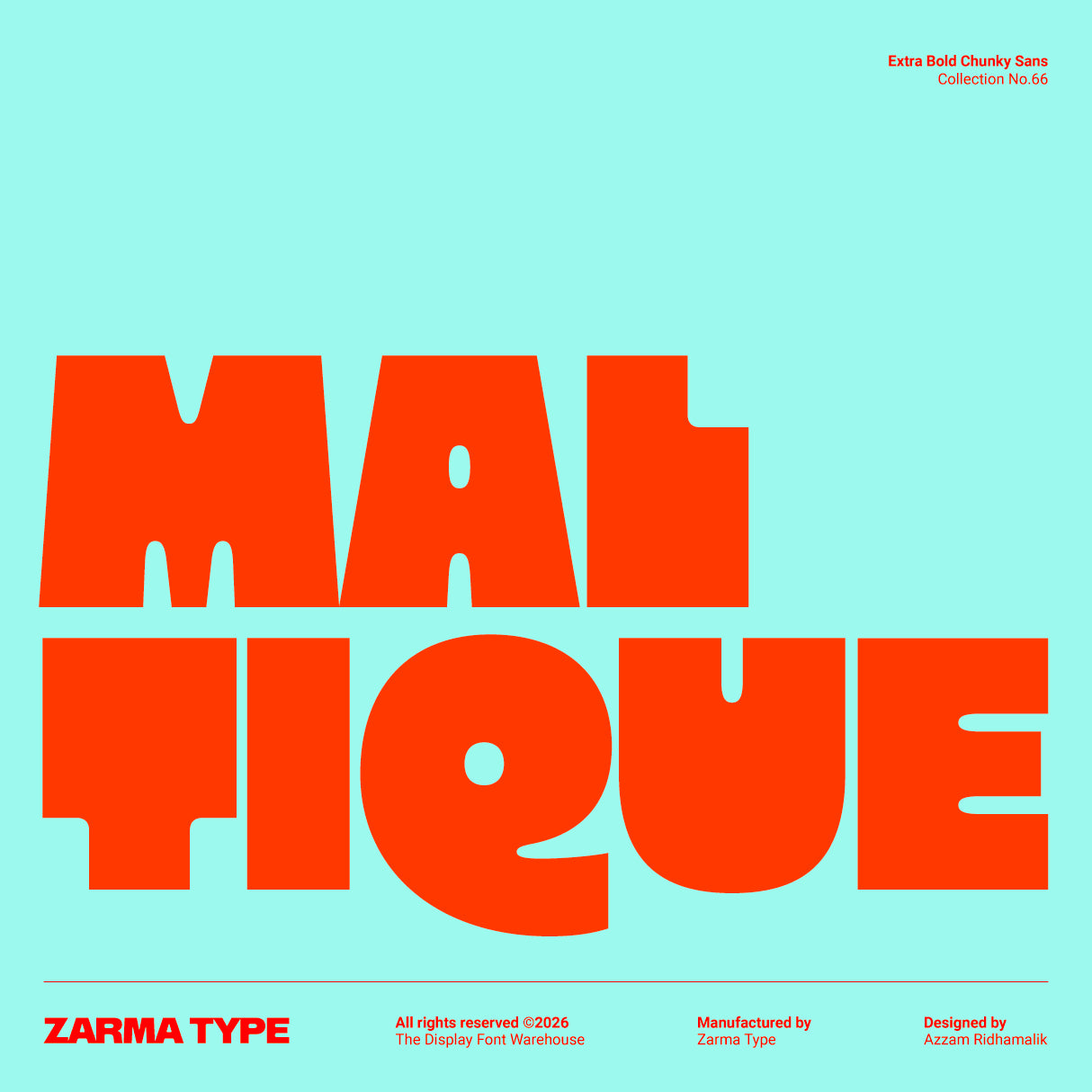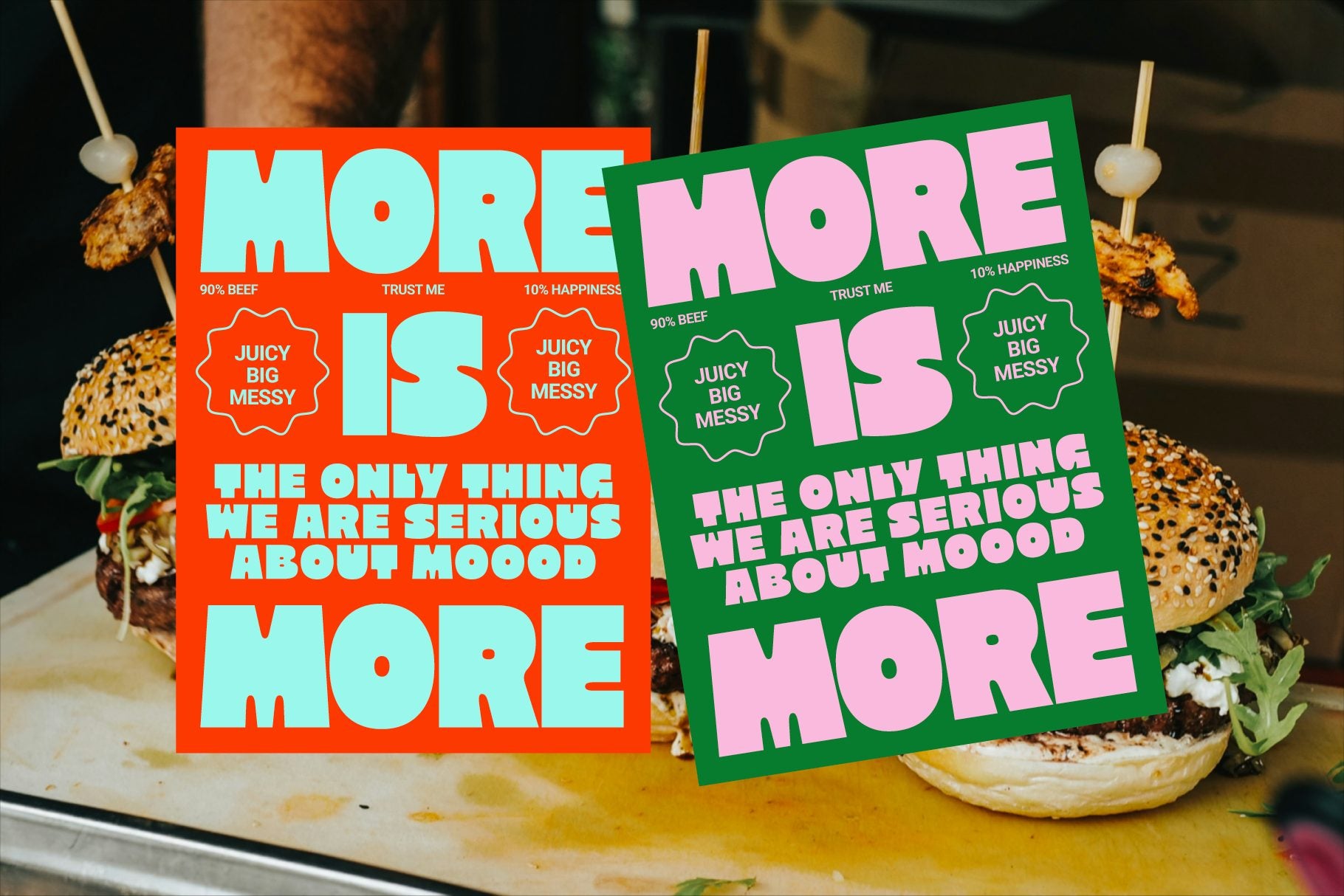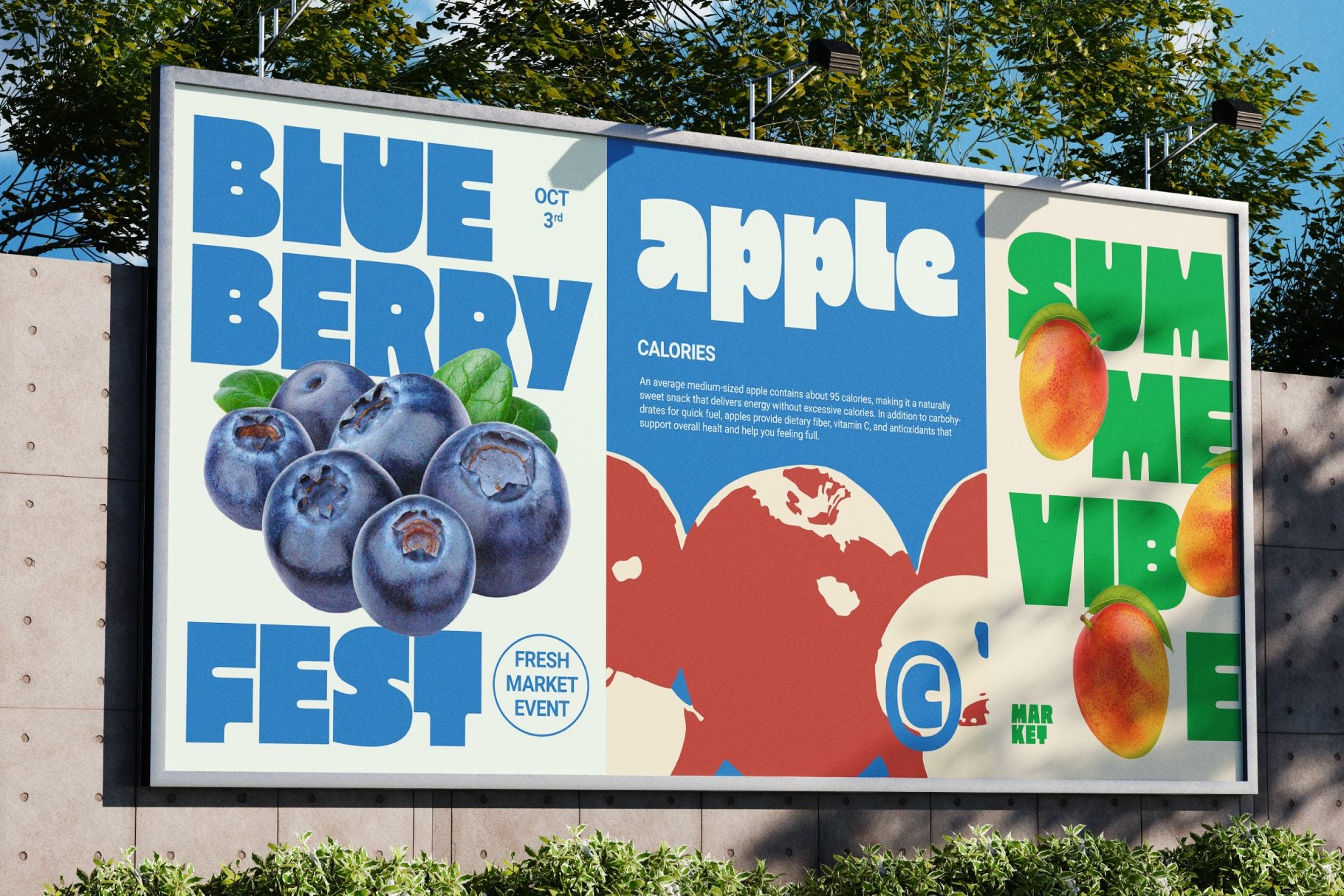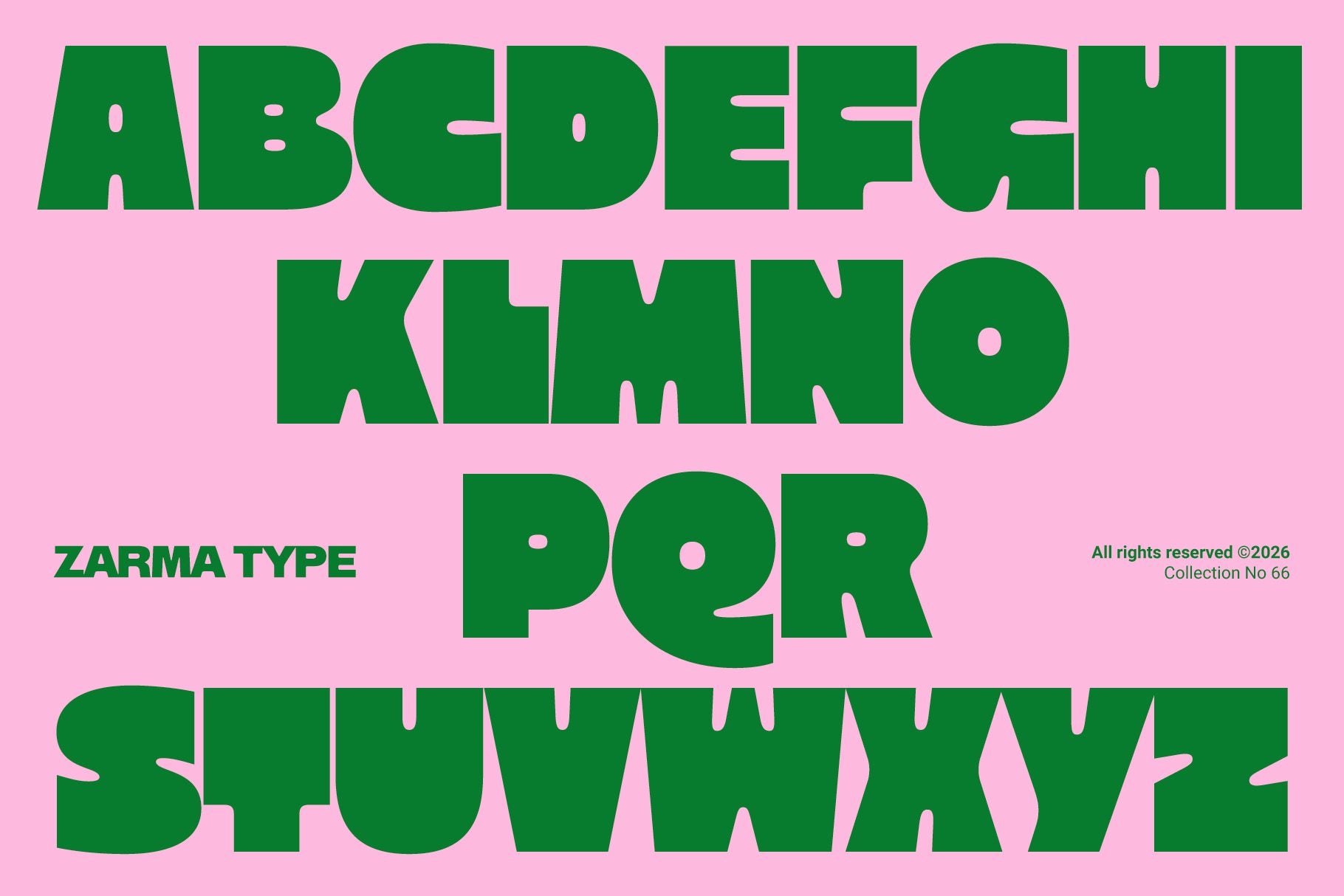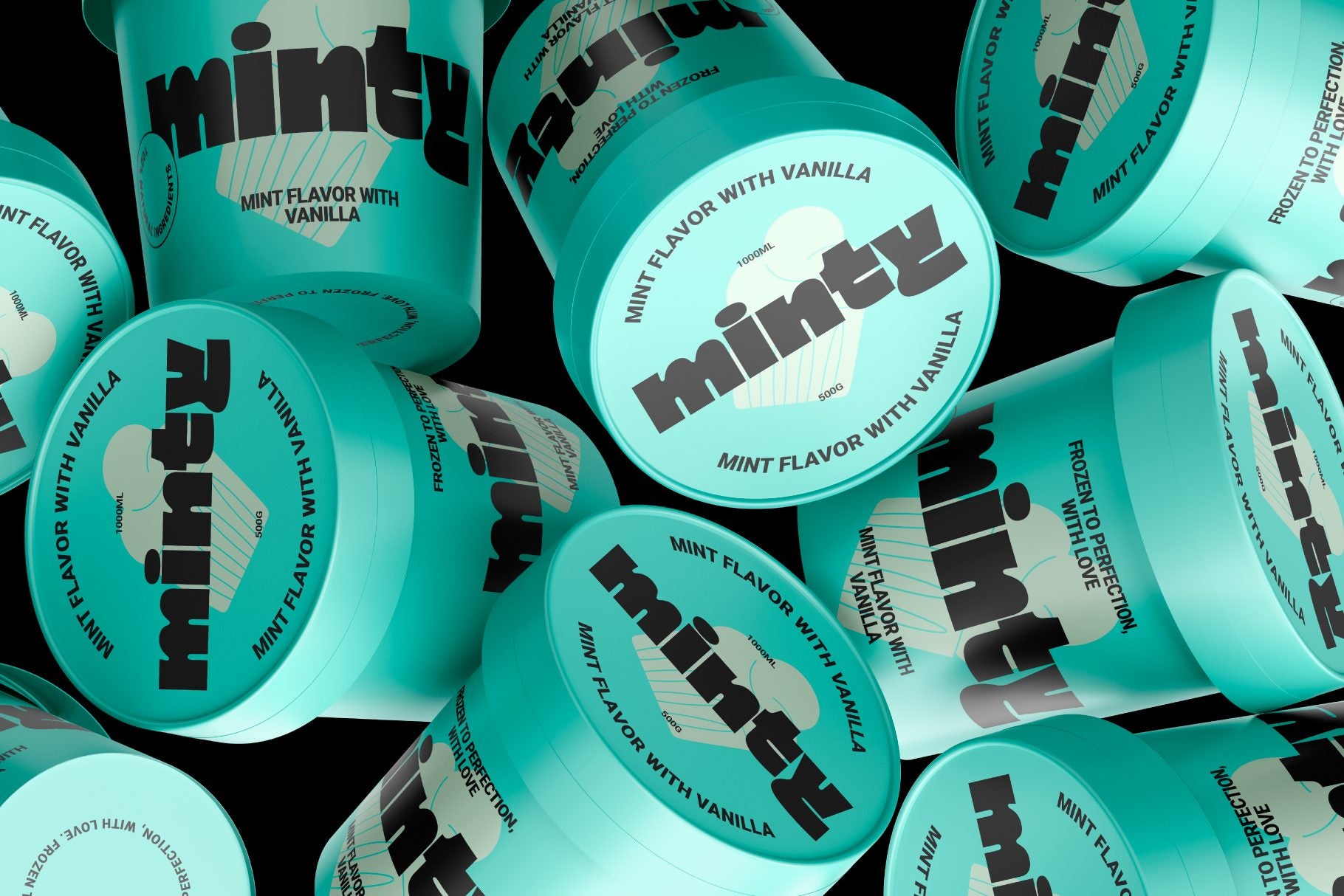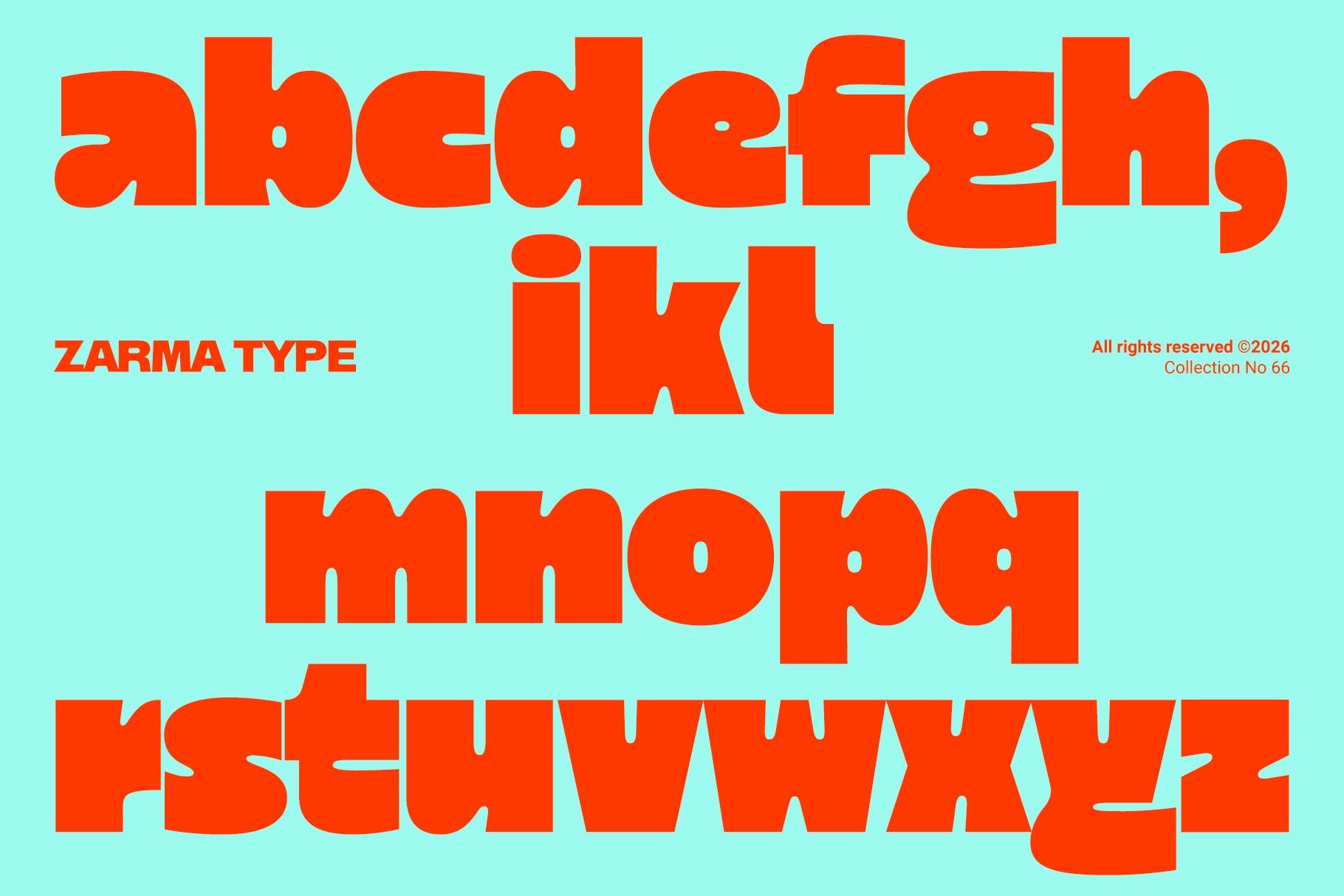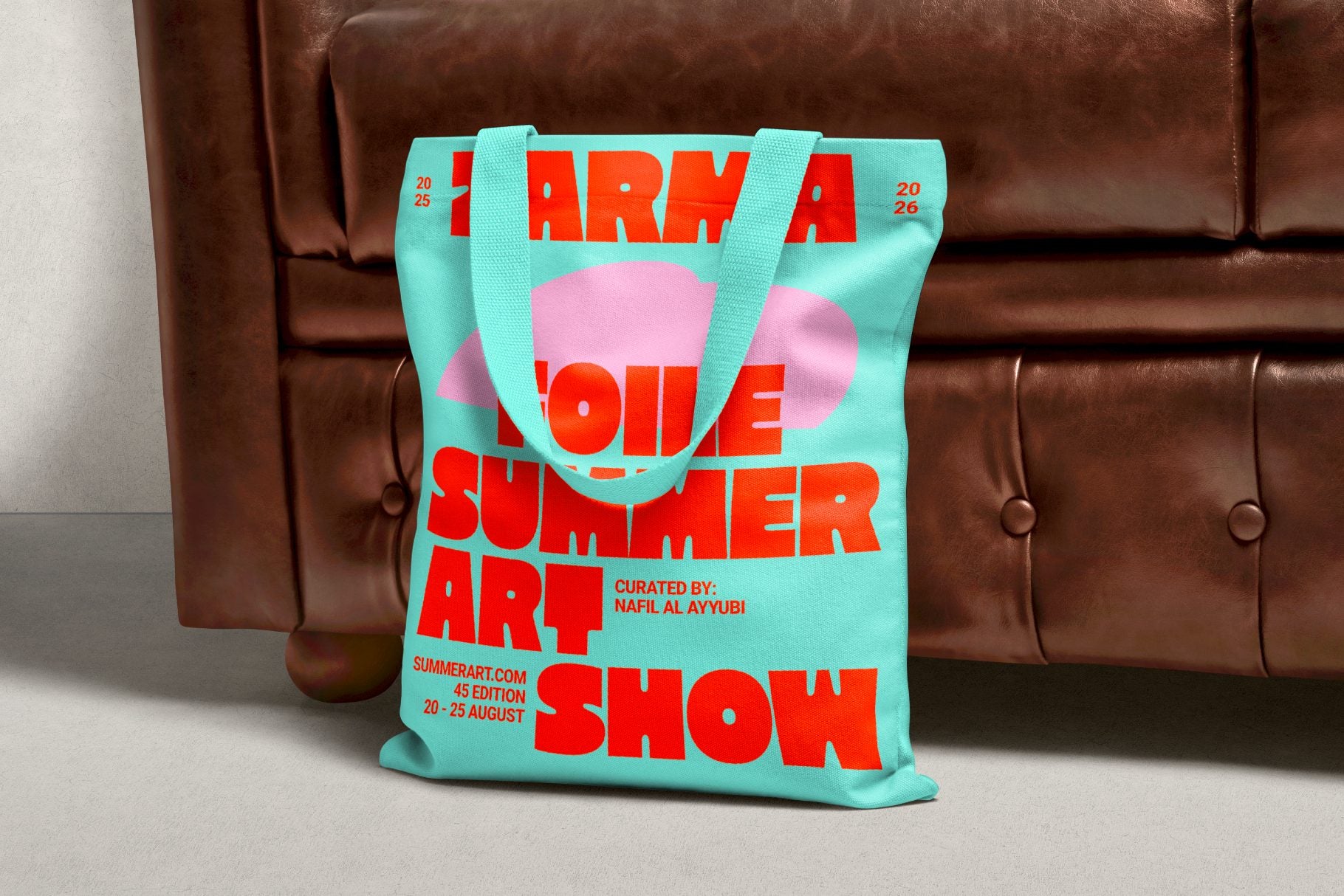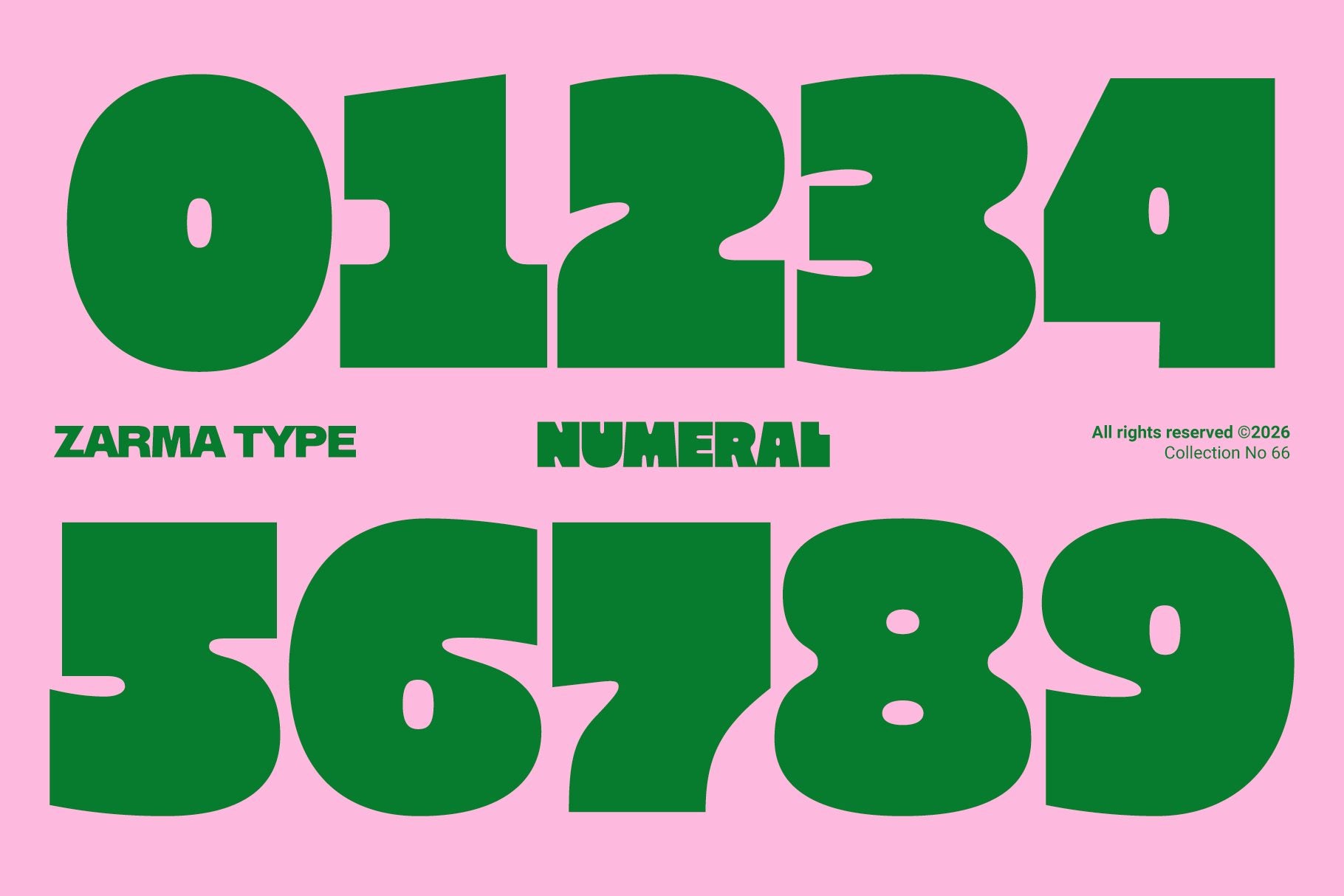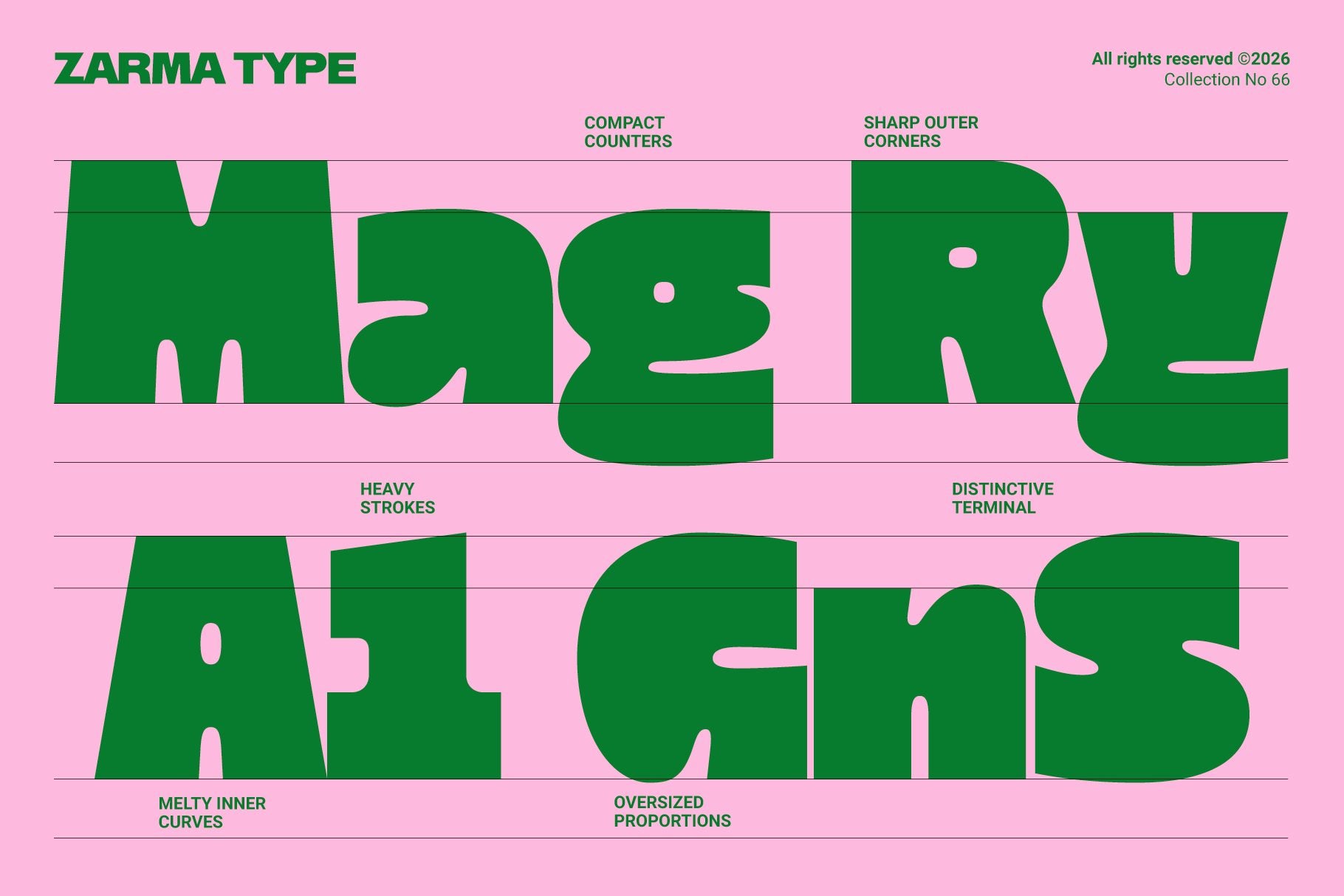
Maltique Font
Maltique is an Extra Bold Chunky Sans Serif designed with oversized proportions, heavy strokes, compact counters, and bold display impact. Its sharp outer corners create a confident silhouette, while soft, melty inner curves add warmth and personality, making it perfect for food and beverage branding, restaurant and café identities, logos, posters, packaging, product labels, editorial headlines, social media graphics, merchandise, apparel, and oversized typography that demands attention.
Created for expressive branding, Maltique includes uppercase and lowercase characters, numbers, punctuation, symbols, Multilingual Support, PUA Encoded Characters for easy access to alternates, and comes in OTF, TTF, WOFF, and WOFF2 formats. Combining playful retro charm with modern bold minimalism, Maltique delivers the strength, versatility, and memorable character needed to make every design stand out.
Maltique Font is an Extra Bold Chunky Sans Serif typeface featuring oversized proportions, heavy strokes, and compact counters. It includes uppercase and lowercase characters, numbers, punctuation, symbols, Multilingual Support, and PUA Encoded Characters, available in OTF, TTF, WOFF, and WOFF2 formats.